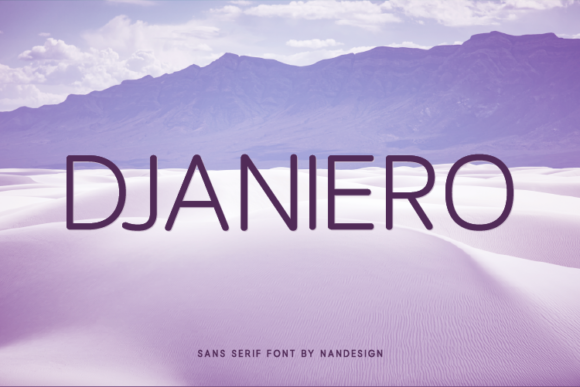
In the realm of typography, where letters dance and words come alive, Djaniero Font emerges as a radiant star, illuminating your creative projects with its captivating charm. This sans serif font, meticulously crafted by the talented Nan Design, embodies simplicity and elegance, seamlessly adapting to any design vision you may possess.
Djaniero Font isn't just a collection of characters; it's an artistic masterpiece that transforms your designs into captivating works of art. Its clean lines and graceful curves exude a timeless appeal, adding a touch of sophistication to any project. Whether you're a seasoned designer or just starting your creative journey, Djaniero Font will elevate your work to new heights.
With its versatile nature, Djaniero Font effortlessly complements a wide range of design endeavors. From eye-catching headings that demand attention to elegant invitations that exude charm, this font seamlessly blends into any project, enhancing its visual appeal. Create logos that radiate professionalism, or craft stunning T-shirt designs that speak volumes about your unique style.
Unleash your creativity and let the Djaniero Font ignite your imagination. Its versatility knows no bounds, allowing you to explore endless possibilities. Design business cards that leave a lasting impression, or create social media posts that captivate your audience. Djaniero Font is the perfect companion for any project that seeks to leave an indelible mark.
Step into the world of Djaniero Font, where your designs will flourish and your creativity will soar. Embrace the beauty of simplicity and let this font elevate your projects to new heights of excellence. As you embark on your creative journey, Djaniero Font will be your trusted guide, transforming your ideas into stunning realities.